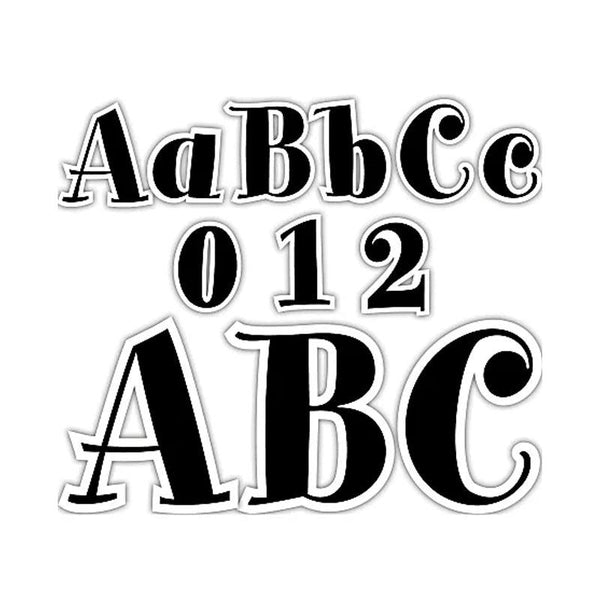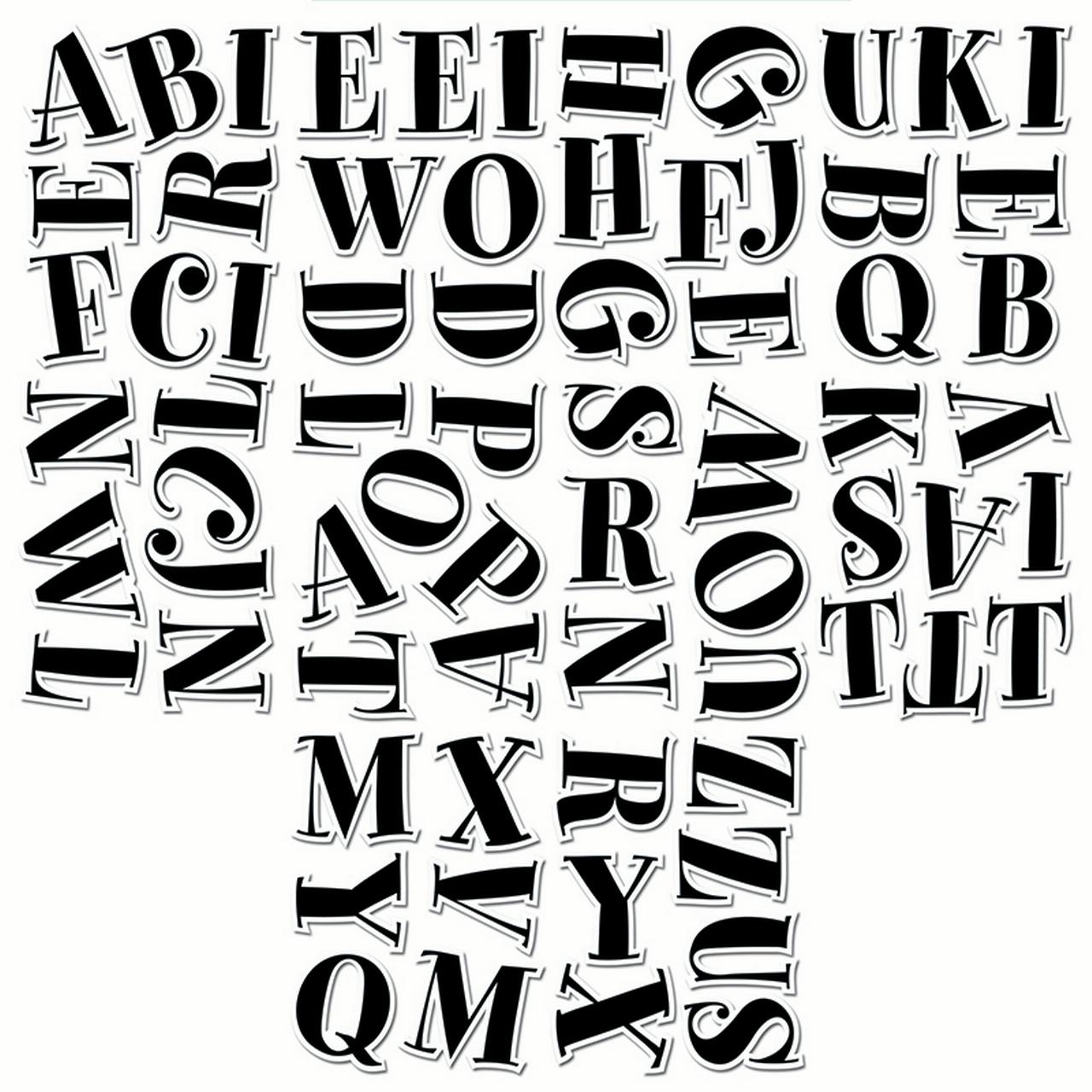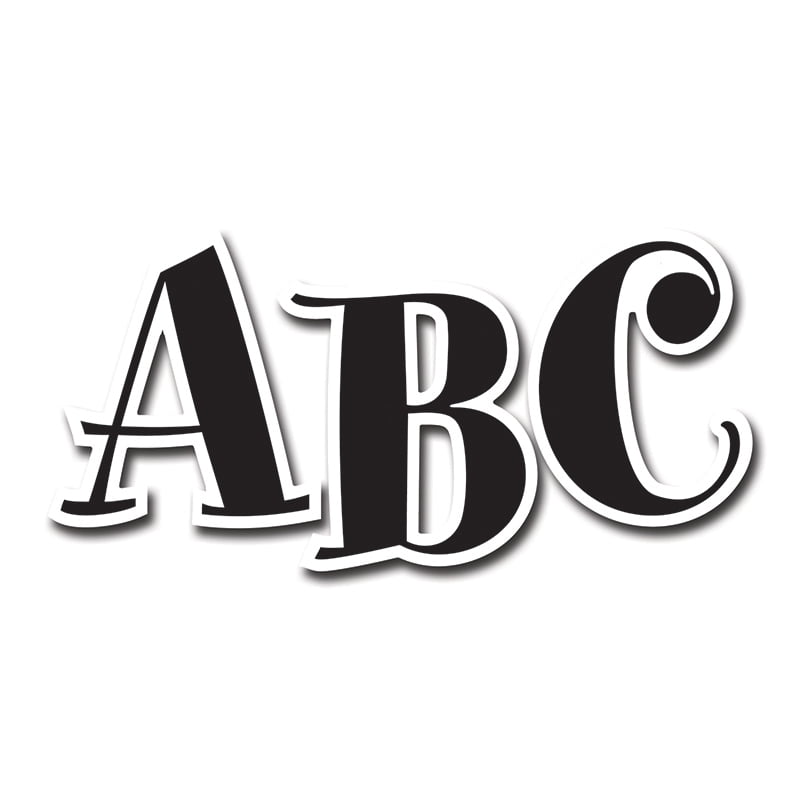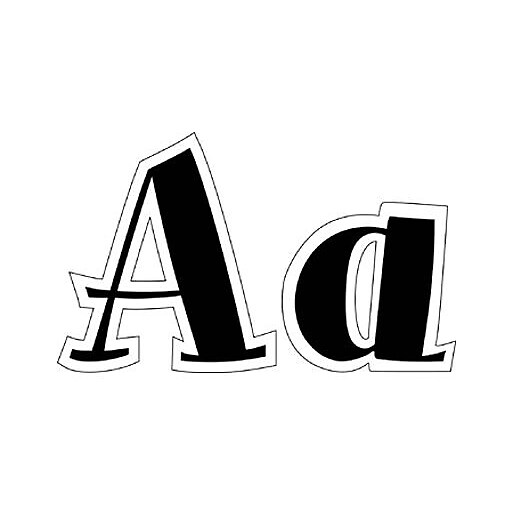
Web download spumoni for free, view sample text, rating and more on fontsgeek.com. A serif typeface with 1 style, available from adobe fonts for sync. Web explore spumoni lp designed by garrett boge at adobe fonts.
Web explore spumoni lp designed by garrett boge at adobe fonts. Web spumoni font free download. A great choice for highlighting your design elements. A serif typeface with 1 style, available from adobe fonts for sync.
Spumoni Font Download - Web download spumoni regulartruetype font. Web spumoni font free download. Web spumoni plays freely off of the typeface bodoni. Spumoni font is a fancy font that shows the jiggly letters. Web download spumoni regular for free.
Spumoni Font Download - Web download spumoni regular for free. Spumoni font is a fancy font that shows the jiggly letters. Web download for free spumoni regular. Web explore spumoni lp designed by garrett boge at adobe fonts. Web spumoni font free download.
Spumoni Font Download - Check out examples of the spumoni regular font at azfonts Web spumoni font free download. Spumoni font is a fancy font that shows the jiggly letters. Web spumoni plays freely off of the typeface bodoni. Web download spumoni regular for free.
Spumoni Font Download - See how to download spumoni for free! Web download spumoni for free, view sample text, rating and more on fontsgeek.com. Web spumoni plays freely off of the typeface bodoni. Web spumoni font free download. A serif typeface with 1 style, available from adobe fonts for sync.
Spumoni Font Download - Web download spumoni regulartruetype font. Web download spumoni regular for free. A great choice for highlighting your design elements. Web explore spumoni lp designed by garrett boge at adobe fonts. See how to download spumoni for free!
Spumoni Font Download - Web explore spumoni lp designed by garrett boge at adobe fonts. Web spumoni plays freely off of the typeface bodoni. Web download spumoni for free, view sample text, rating and more on fontsgeek.com. Spumoni font is a fancy font that shows the jiggly letters. A great choice for highlighting your design elements.
Spumoni Font Download - Web download spumoni for free, view sample text, rating and more on fontsgeek.com. Web explore spumoni lp designed by garrett boge at adobe fonts. Web spumoni font free download. See how to download spumoni for free!
Spumoni Font Download - Web spumoni font free download. Spumoni font is a fancy font that shows the jiggly letters. A great choice for highlighting your design elements. A serif typeface with 1 style, available from adobe fonts for sync. Web spumoni plays freely off of the typeface bodoni.
Spumoni Font Download - Web download spumoni regular for free. Web download spumoni for free, view sample text, rating and more on fontsgeek.com. Check out examples of the spumoni regular font at azfonts See how to download spumoni for free! Spumoni font is a fancy font that shows the jiggly letters.
Spumoni Font Download - See how to download spumoni for free! A serif typeface with 1 style, available from adobe fonts for sync. Web spumoni font free download. Web download for free spumoni regular. Web spumoni plays freely off of the typeface bodoni.
Spumoni Font Download - Spumoni font is a fancy font that shows the jiggly letters. See how to download spumoni for free! Web explore spumoni lp designed by garrett boge at adobe fonts. Web download spumoni regular for free. A great choice for highlighting your design elements.
Spumoni Font Download - Web download spumoni regulartruetype font. Download 186,286 free fonts at ufonts.com. Web download spumoni regular for free. Check out examples of the spumoni regular font at azfonts Web spumoni font free download.
Spumoni Font Download - Web download spumoni regular for free. Spumoni font is a fancy font that shows the jiggly letters. Web spumoni font free download. Check out examples of the spumoni regular font at azfonts Web explore spumoni lp designed by garrett boge at adobe fonts.
Spumoni Font Download - Web explore spumoni lp designed by garrett boge at adobe fonts. Download 186,286 free fonts at ufonts.com. Spumoni font is a fancy font that shows the jiggly letters. Web spumoni font free download. Web download spumoni for free, view sample text, rating and more on fontsgeek.com.
Spumoni Font Download - Web explore spumoni lp designed by garrett boge at adobe fonts. Web spumoni font free download. A serif typeface with 1 style, available from adobe fonts for sync. Web spumoni font free download. Download 186,286 free fonts at ufonts.com.